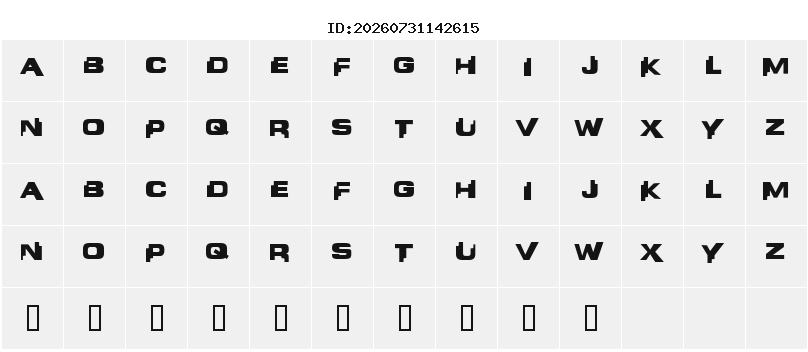
Liandri Preview
About Liandri.ttf
Liandri.ttf is a modern, elegant sans-serif font designed for ultimate readability and visual harmony. Perfect for branding, headlines, web design, and print materials.